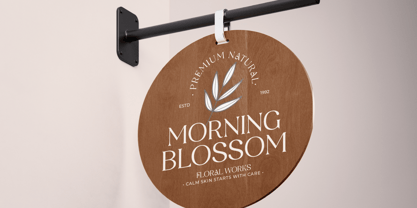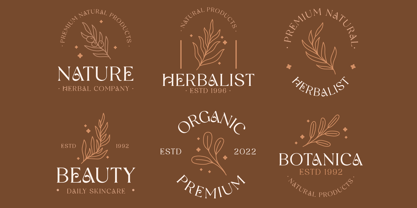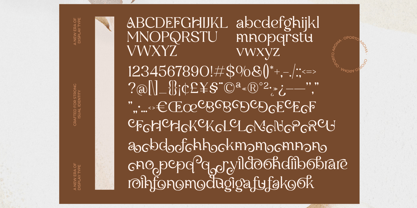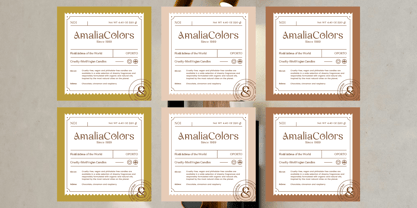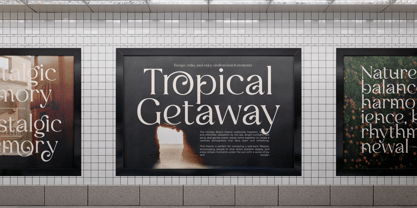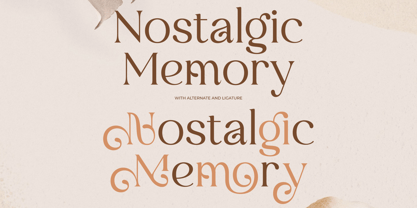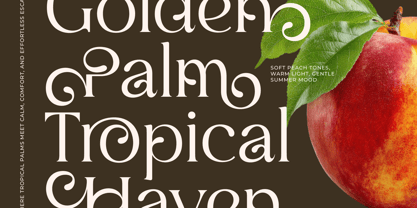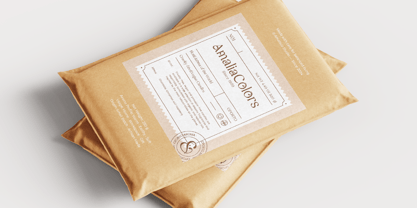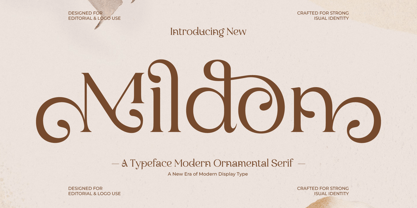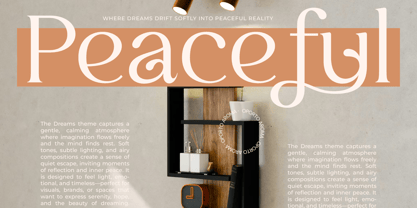
Mildon
by Jaruka Creative
The Mildon Font Family was designed by Edy Subiyanto and published by Jaruka Creative. Mildon contains 1 styles. More about this family
Meet Mildon: A New Era of Modern Display Type
Step into a world where timeless elegance meets contemporary flair. Mildon is a stunning modern ornamental serif font designed specifically for high-end editorial layouts, striking logos, and memorable brand identities. It marks the beginning of a fresh era in display typography, perfectly balancing classic structure with expressive, artistic fluid flourishes.
Key Features
• Ornamental Sophistication: Every character features meticulous, flowing curves and loops that instantly draw the eye, making it ideal for statement headlines.
• Alternates & Ligatures: Bring ultimate variety to your text. You can shift seamlessly from standard, clean layout text to a highly stylized "Nostalgic Memory" aesthetic using its rich set of alternate characters and ligatures.
• Full Character Set: Mildon is fully equipped for complex graphic design. Mildon displays the complete glyph map, showcasing uppercase and lowercase letters, numbers, punctuation, and its extensive collection of beautifully swashed decorative variants.
Versatility in Application
Mildon transitions effortlessly across a wide range of premium mediums, adding a natural yet luxurious character wherever it's used:
• Boutique Signage & Branding: Create an inviting atmosphere for organic spaces. See how beautifully it pairs with natural wood for a floral works or skincare boutique storefront.
• Organic Product Packaging: Give your retail items a high-end, eco-conscious feel. Its application on candle labels and shipping packages showcases its ability to deliver an authentic, artisan look.
• Impactful Editorial & Advertising: From the expansive layout of a magazine spread to a dramatic subway advertisement wall, Mildon commands attention while maintaining perfect legibility.
• Warm, Sun-Drenched Aesthetics: Use its sweeping curves to evoke a soft, peaceful, or tropical summer mood, as wonderfully illustrated next to vibrant, warm-toned graphics.
• Logo Kits & Insignias: Looking to construct a cohesive visual brand? Mildon reveals how seamlessly the typeface integrates into diverse, circular botanical logos and holistic company emblems.
Elevate Your Identity: Crafted explicitly for strong visual presence and elegant editorial use, Mildon turns every single word into an intentional piece of art.